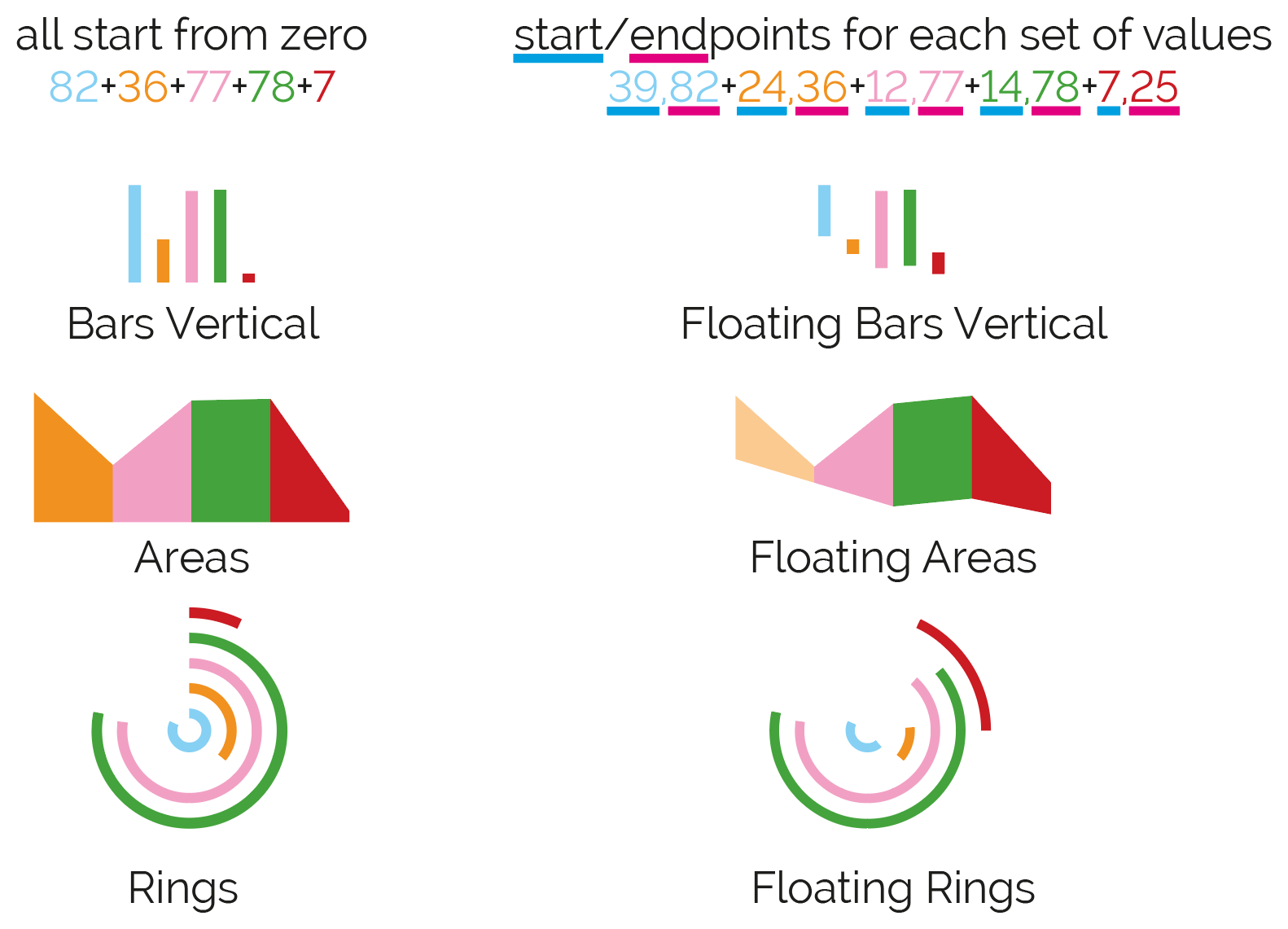
Chartwell Typeface: Update
In 2011, Mike Rankin featured the story of the Chartwell typeface. It is a collection of fonts that can display various graphs in one of seven ways thanks to clever use of ligatures:
- Pie charts
- Line graphs (with fills)
- Vertical bars
- Horizontal bars
- Rose charts
- Ring charts
- Radar charts
Since then, the Chartwell typeface has been updated and features new ways to display charts:
Bubbles
This turns the numbers between 1-100 into circles that have a size that reflects their value. Just like regular type, the circles can be given fills, strokes or gradients.
Scatter
Scatter is similar to bubbles, but it allows the bubble to be positioned on X-Y coordinates of 0-100. More importantly, it doesn’t matter what order the statistics are entered, so long as the coordinates are entered as X coordinate, Y coordinate, value. If a value isn’t given, a default size is given instead. The stacking order of the figures is based on where they are entered in the text. One of five grids can be added as part of the font by adding a letter a-e to the start of the sequence. If a grid from the font isn’t sufficient, one can be drawn using the usual tools in InDesign.
One constraint is that the grid being referenced is always square in shape. It can be scaled using the horizontal and vertical scales of the character tools, but the results look unusual.
Line graphs
This replaces the previously named Chartwell lines that has now become Chartwell areas. The line graph can also be given one of six thicknesses. Just like scatter, the letters a-e at the start of the figures can add a grid, but unlike scatter, adding the letter x followed by a value 0-100 will add a specific gridline through the chart.
Floating bars, areas, and rings
These behave similar to the regular bars, areas or rings with the exception that they no longer start from 0, but instead start from a given value. To work properly, the end value of each record must be greater than the start value.
Other Chartwell tricks
One consideration with the fonts is that the majority of them will only work with whole numbers between 0-100. Chartwell bars is slightly different in that it will work with whole numbers between 0-1000. The idea of only working with whole numbers between 0-100 may make some users consider other options instead of using the Chartwell typeface as a solution. However, there’s a potentially viable fix: In Excel, convert the values to percentages and round them, then import them into InDesign. It’s true that some precision is lost by doing this, but if the purpose is for an infographic or a chart that is tiny in size, the differences will usually be imperceptible.
The new inclusions to the typeface certainly expand the use of Chartwell. Chartwell bars is still my favorite as it has other uses:
- It can represent more values than the vertical bars (900 more values);
- Its appearance can be changed by giving it a fill/stroke of none and using the underline feature to control its appearance; and
- When combined with anchored objects, it can move an object to a desired location; or hide an item that is underneath the text frame by a clever use of a multiply trick and the Knockout Group feature.